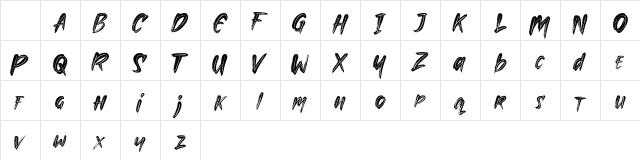
Complete Lockdown demo Regular glyph index. Displaying only characters natively supported by Lockdown demo Regular font.
Lockdown demo is a composed and adaptable typeface that performs quietly and consistently across a wide range of design contexts.